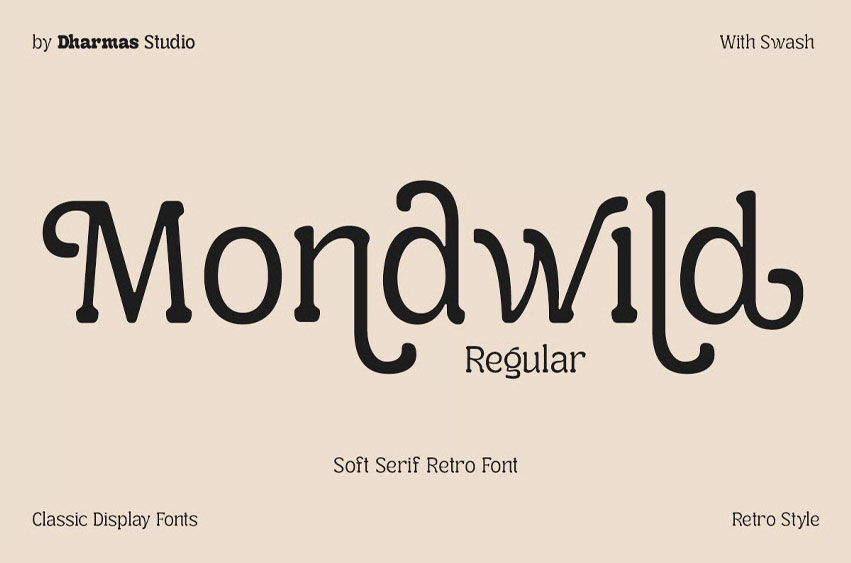
Mondwild Regular Font
Mondwild Regular Font is a nostalgic serif typeface infused with modern functionality. Designed with a strong retro influence and clean geometric touches, this font brings out a classic yet trendy feel. The expressive curves and subtle contrast make it perfect for delivering personality without overwhelming your layout.
This version features the Regular weight, crafted for versatility across website hero sections. Mondwild Regular offers a strong presence and legibility, making it a reliable choice for designs that need both charm and clarity. With over 100+ stylistic alternates and ligatures, it’s easy to create one-of-a-kind typographic compositions with a vintage soul.
• 100+ Unique Alternates and Ligatures